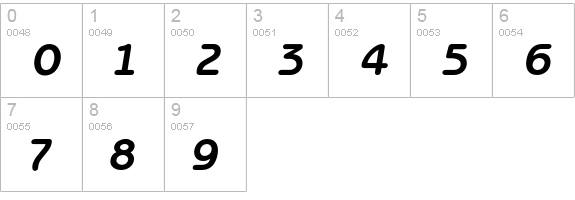
BenguiatGothicBoldItalic Font Details
BenguiatGothicBoldItalic font is a striking and bold typeface that exudes a sense of modernity and sophistication. Its italicized style adds a touch of elegance and flair to any design project. With its clean lines and strong presence, BenguiatGothicBoldItalic is perfect for creating eye-catching headlines, titles, and branding materials. This versatile font is suitable for a wide range of applications, from advertising and editorial design to signage and packaging. Its bold and italicized characters make a bold statement while remaining highly readable. BenguiatGothicBoldItalic is sure to make your text stand out and leave a lasting impression on your audience. The best part? BenguiatGothicBoldItalic font is available for free download at FontsMarket.com. So, whether you're a designer looking to add a touch of sophistication to your projects or a business owner in need of a distinctive font for your branding, BenguiatGothicBoldItalic is the perfect choice. Download it today and elevate your designs with this stylish and impactful typeface.